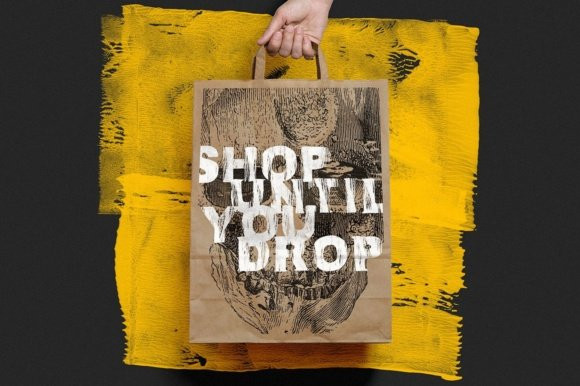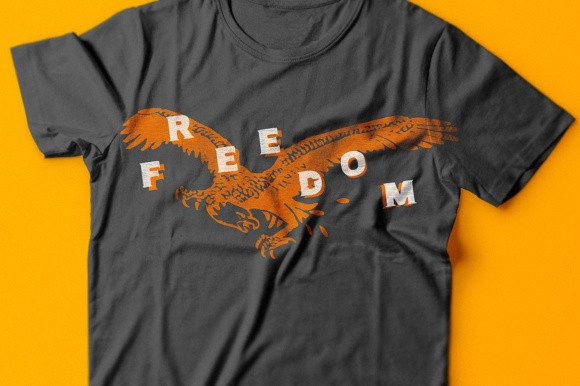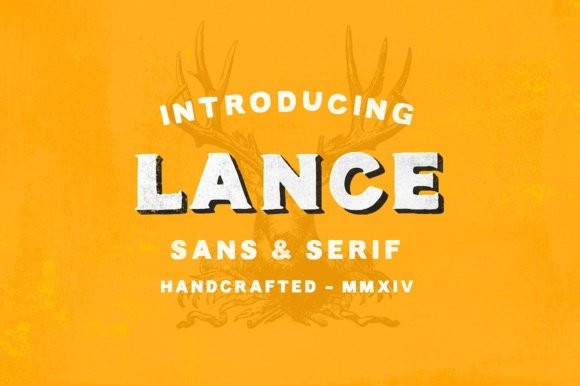
Lance Font
Lance is an all capitals font duo that works together in harmony. Inspired by bold, classic typography and ideal for a whole range of creative projects. The fonts were purposefully designed to look great both front and center, and also as a complementary font to others.